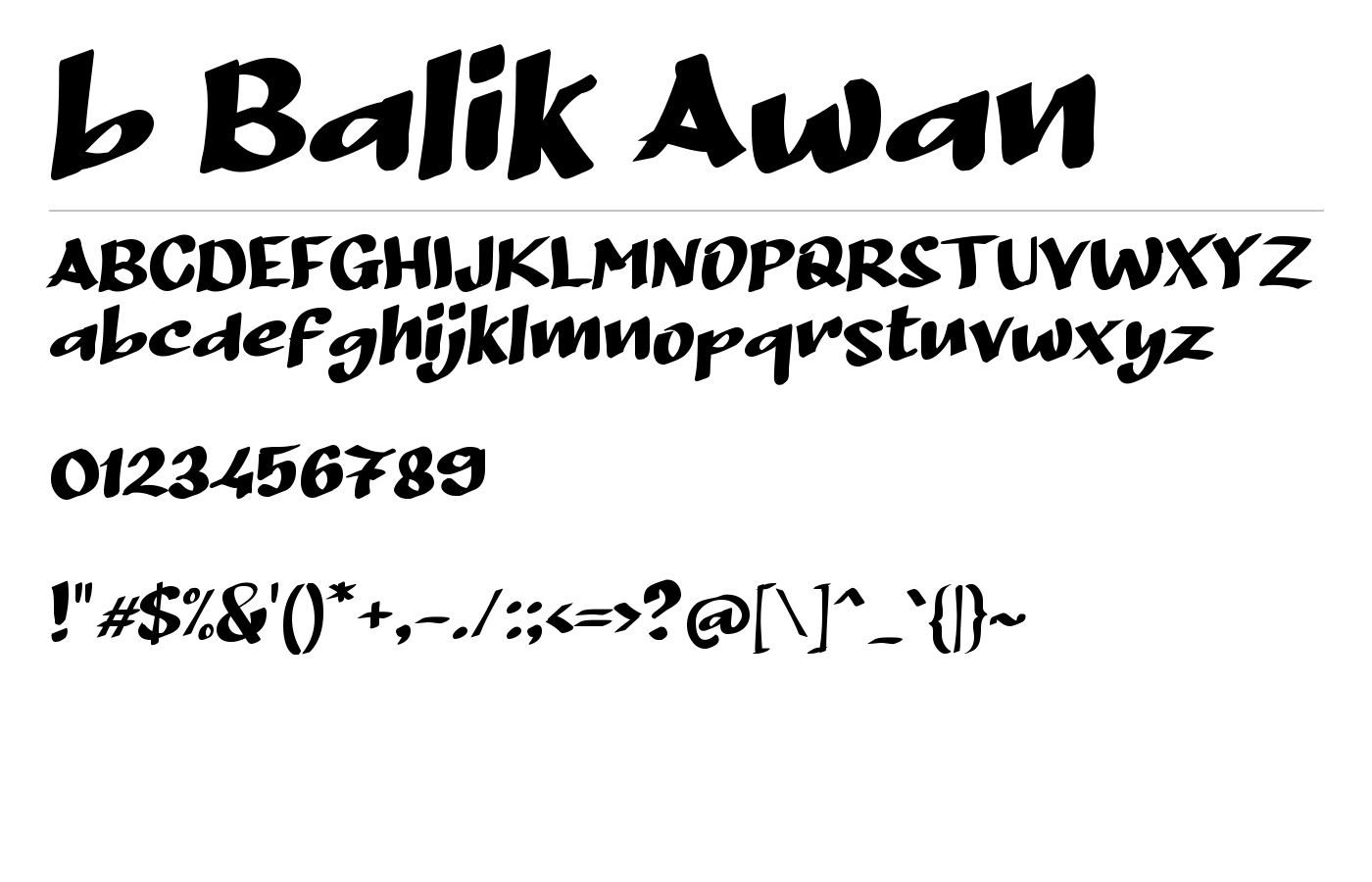
b Balik Awan is a bold, playful handwritten font with a brush-stroke style that brings energy and character to any design. Its uneven, slightly irregular letterforms create a casual yet impactful look, making it perfect for creative projects, informal branding, and eye-catching headlines. This font works well where a lively, artistic vibe is needed, adding personality without sacrificing readability.
b Balik Awan Font
About b Balik Awan Font